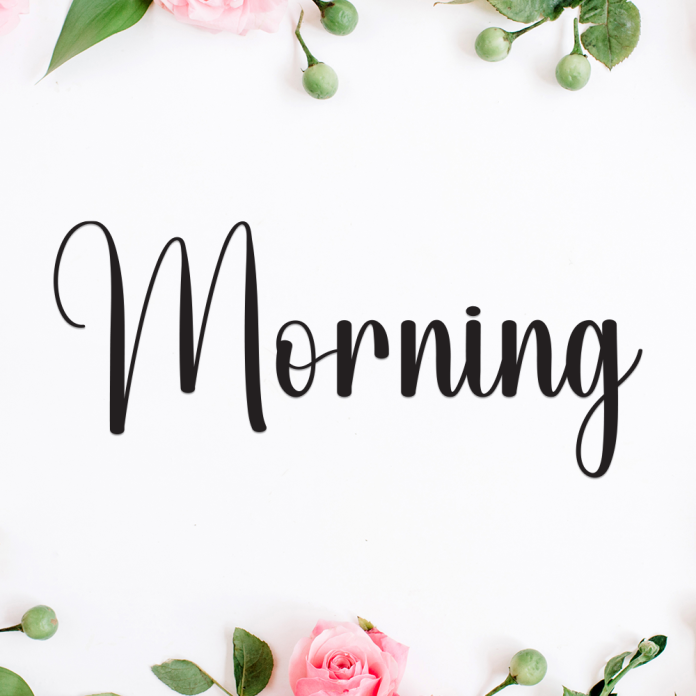
Morning is a graceful and peaceful handwriting font that captures the fresh, serene feeling of a quiet sunrise. With its smooth strokes and gentle curves, this font adds a soft and personal touch to any design.
Perfect for quotes, journals, branding, invitations, and lifestyle content, Morning brings a clean, handwritten elegance that feels natural and heartfelt.
Soft, flowing handwritten style
Perfect for minimal and calming designs
Great for quotes, blogs, stationery, and creative branding
Includes uppercase & lowercase, numbers & punctuation
Start your design day with Morning — a handwriting font that brings warmth and quiet charm to every project.